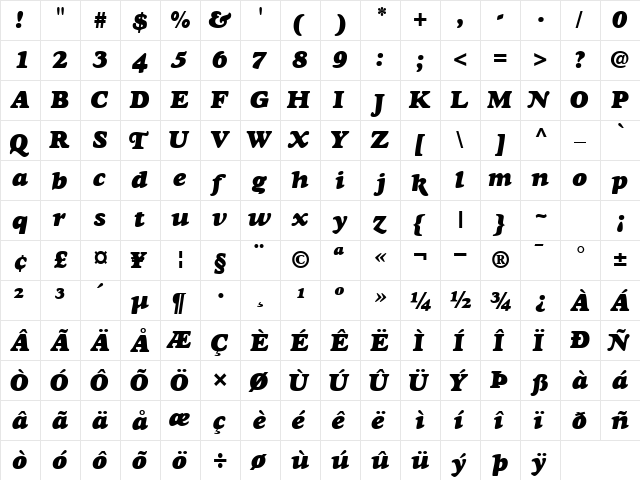
GoudyBlackSSK BoldItalic
Design Context for GoudyBlackSSK Typeface
GoudyBlackSSK is a composed and adaptable typeface that performs quietly and consistently across a wide range of design contexts. The dynamic lean of this cut emphasises speed and emphasis in any layout. Its bold stroke weight gives it real presence on the page.
Pro Tip: Use GoudyBlackSSK for emphasis, pull quotes, and subheadings where its slanted energy can add rhythm to the layout.